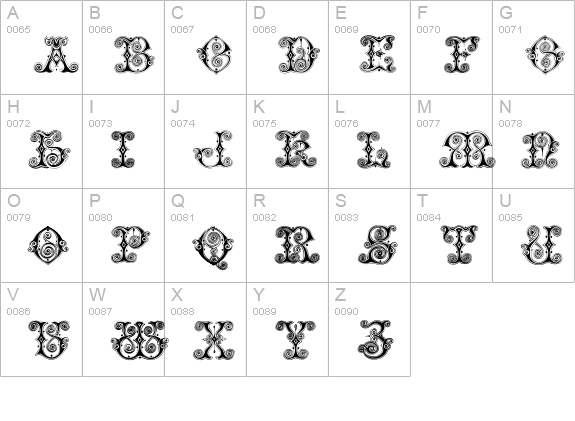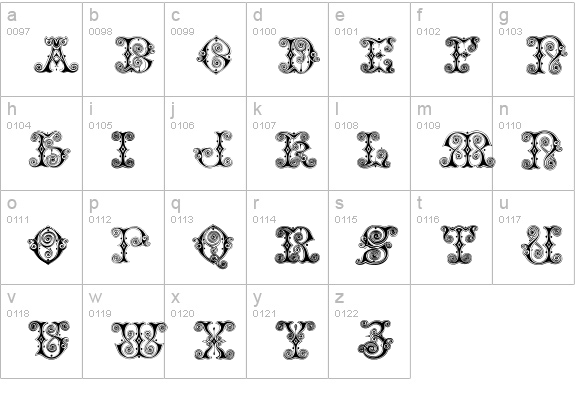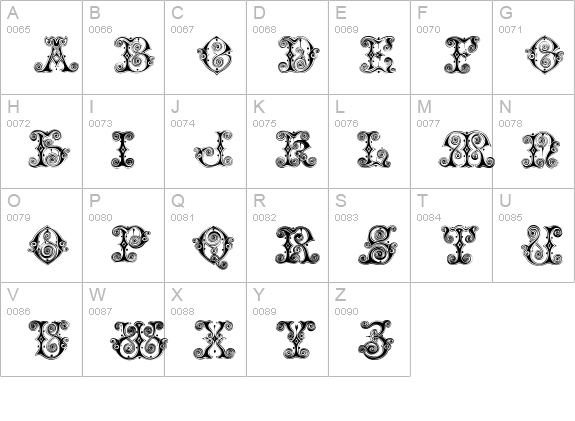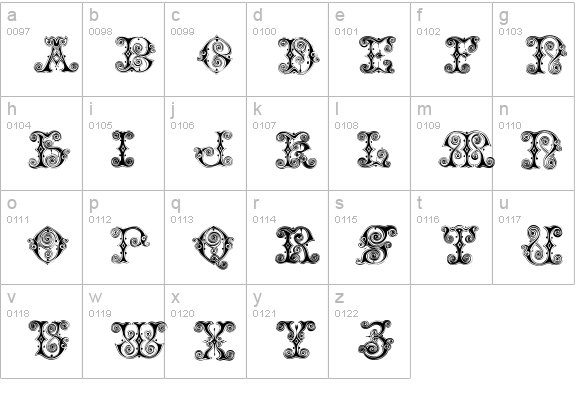
VaticanianInitials Font Details
VaticanianInitials font is a stunning and elegant typeface that exudes sophistication and grandeur. With its intricate and ornate letterforms, this font captures the essence of timeless beauty and classical artistry. Each letter is meticulously crafted with delicate details and graceful curves, making it a perfect choice for adding a touch of luxury to any design project. This font is not only visually captivating, but it also offers versatility and versatility. Whether you're creating invitations for a high-end event, designing a logo for a premium brand, or crafting a headline for a magazine cover, VaticanianInitials font will elevate your design to new heights. One of the best things about VaticanianInitials font is that it is completely free to use. Yes, you read that right! This exquisite font is freely available to download at FontsMarket.com. You can access this font without any restrictions, allowing you to explore the endless possibilities of creative expression. Whether you're a professional designer or a creative enthusiast, VaticanianInitials font is a must-have in your font collection. Its timeless elegance and free availability make it a valuable asset that will enhance your design projects and leave a lasting impression on your audience. So why wait? Visit FontsMarket.com today and download VaticanianInitials font for free. Unleash your creativity and let this font be the centerpiece of your next design masterpiece.